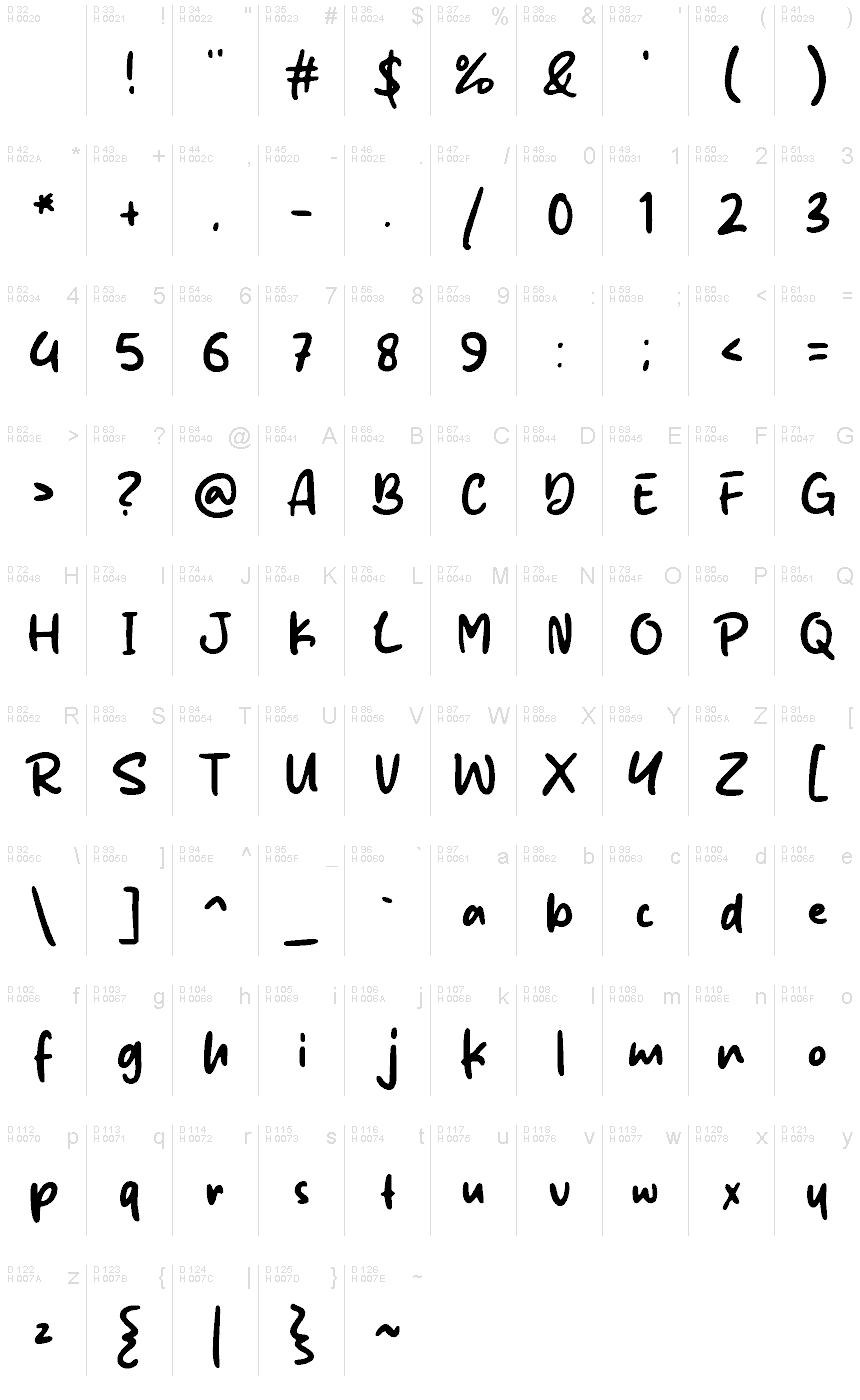
Start Kick
Start Kick font is a handwritten work by MJType that speaks of a relaxed yet energetic feel. The characters have long natural vertical stems which closely match handwriting. This gives a modern vibe and relatable mood to your typography where you can connect with the audience while expressing feelings in an artistic form.